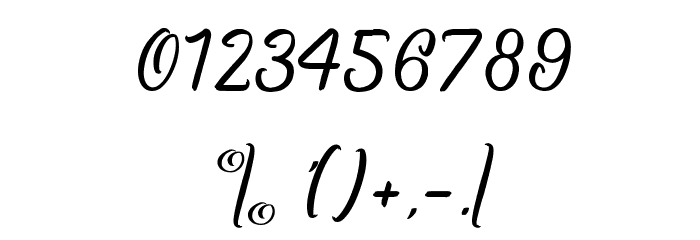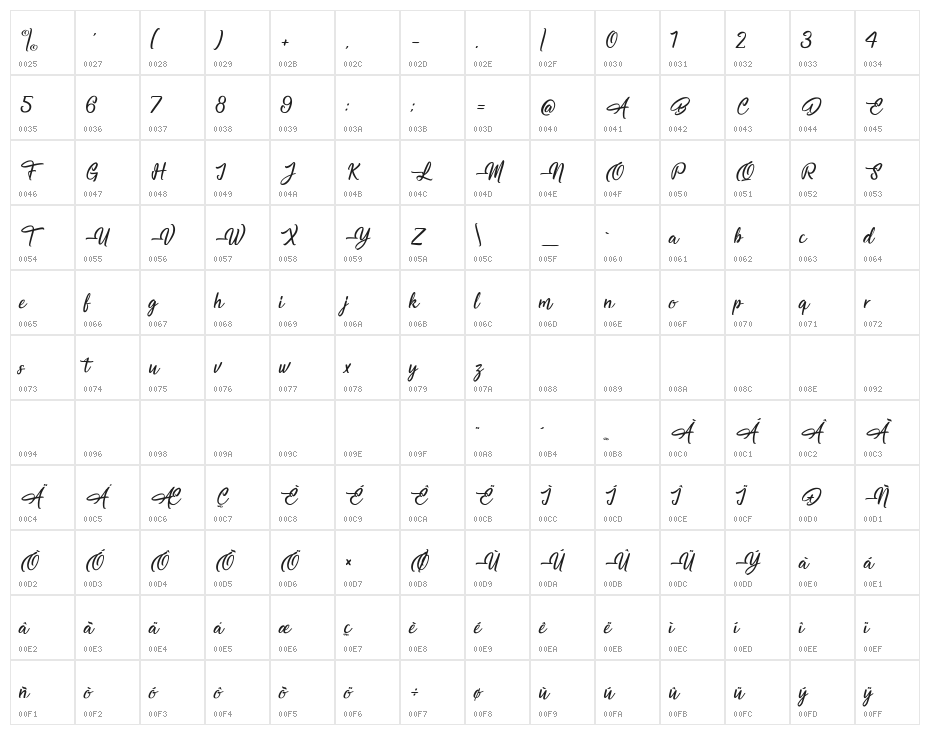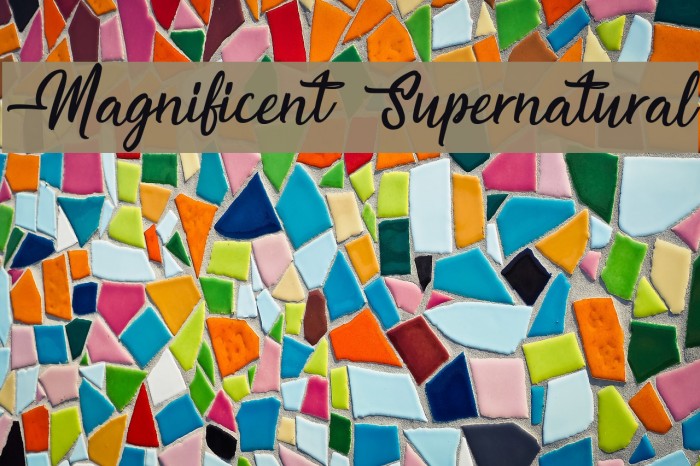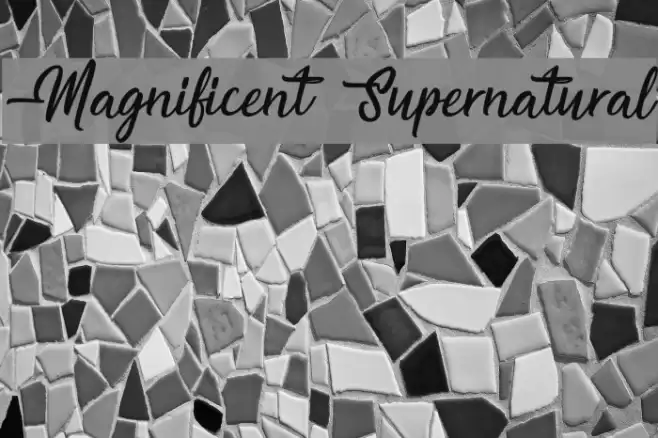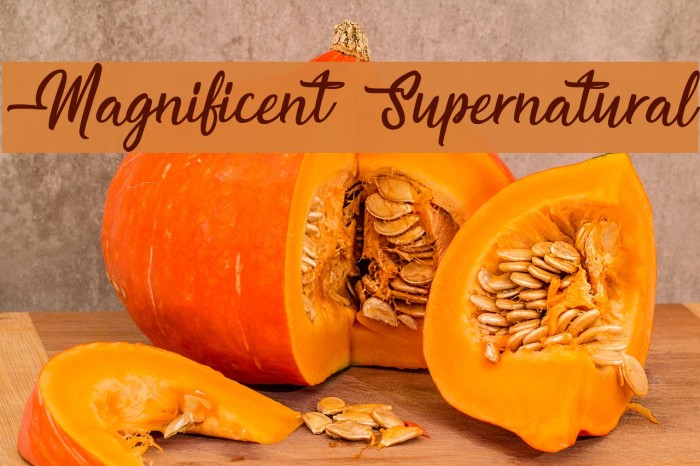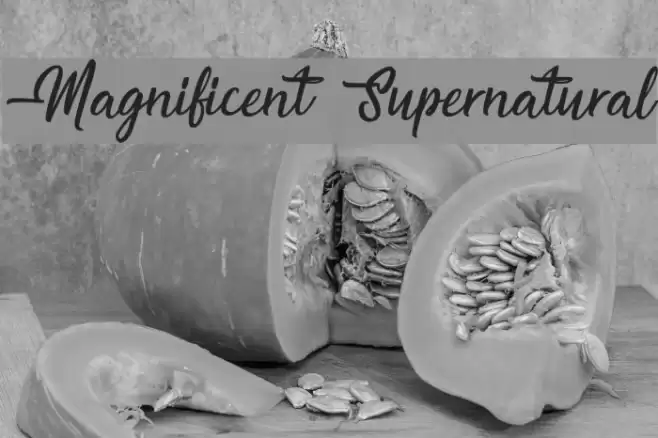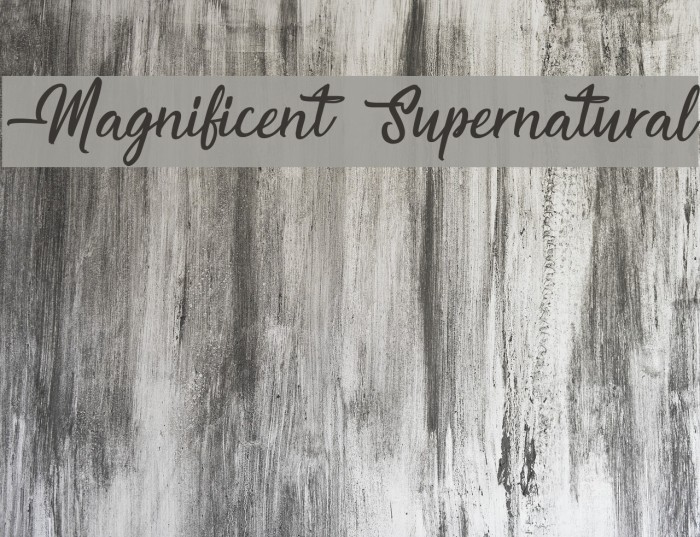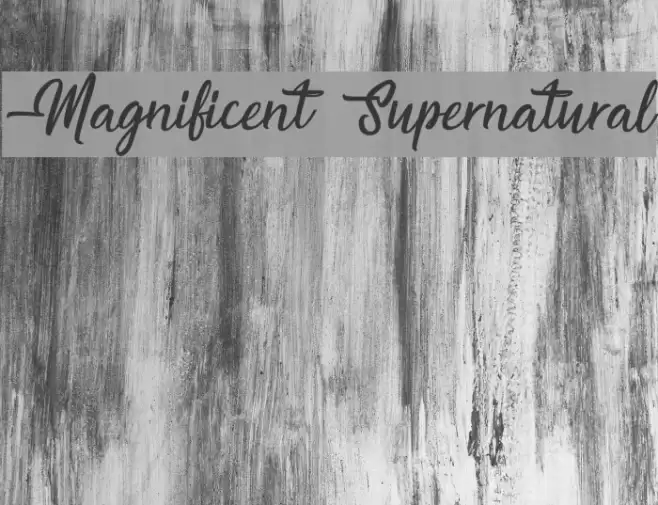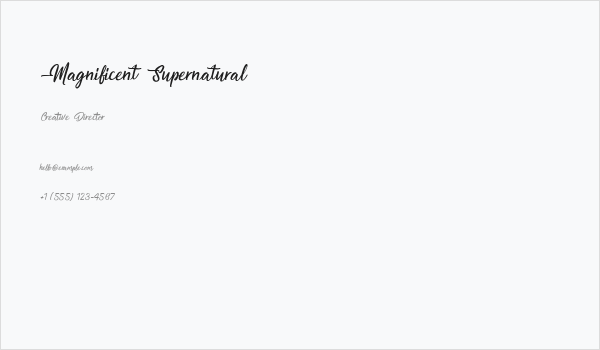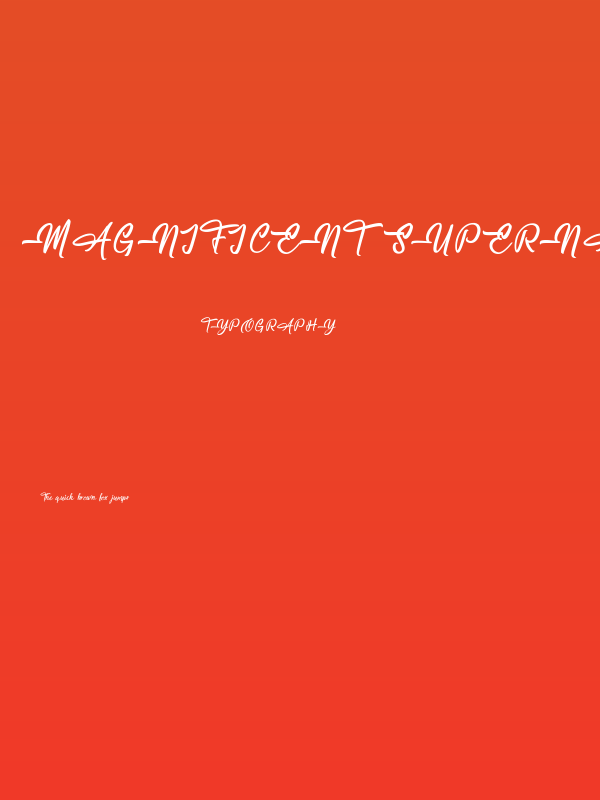
Magnificent Supernatural Font
Magnificent Supernatural Description
This elegant script font features a flowing, cursive style with smooth, rounded edges and a consistent stroke width. The uppercase letters are ornate and slightly larger than the lowercase, adding a touch of sophistication. The lowercase letters maintain a cohesive look with gentle curves and loops, creating a harmonious balance. Numbers and special characters are designed to match the overall aesthetic, making them suitable for decorative purposes. The font's fluidity and grace make it ideal for projects that require a personal, handwritten touch.